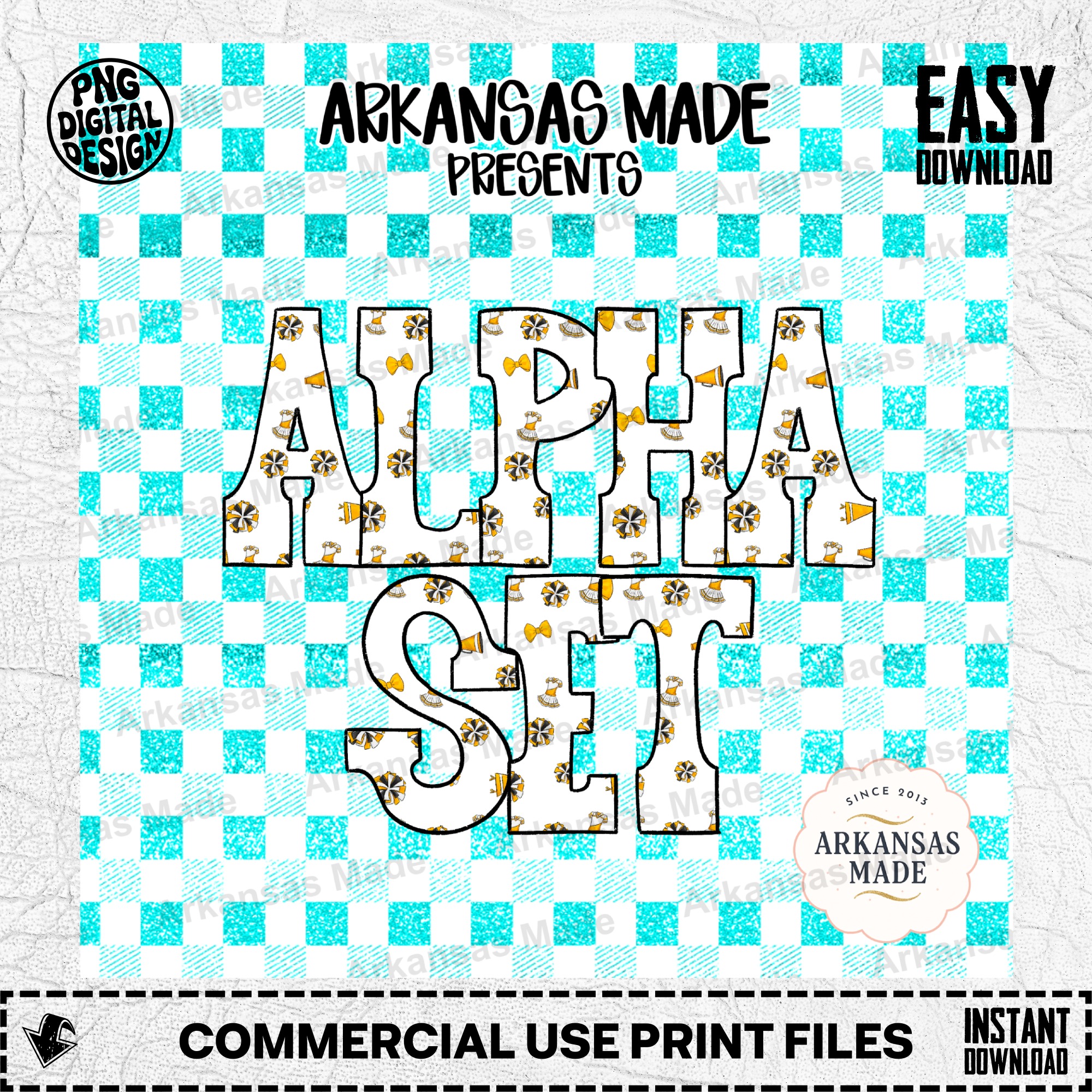
Elevate your designs with our Cheer Alpha PNGs! This vibrant alphabet set features spirited cheerleading elements perfect for digital crafting projects. Unleash your team pride with these delightful letters, filled with faux pom-poms, bows, uniforms, and megaphones illustrations. Ideal for cheer moms, coaches, and school spirit enthusiasts, these PNGs make fantastic personalized gifts for competitions, graduation, or celebrating your favorite cheerleader’s birthday. Create custom apparel, tumblers, banners, and more to show off your athletic spirit!